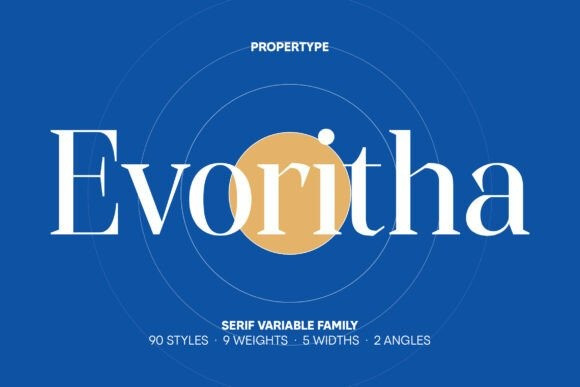
Evoritha Font
Designer: Propertype
Evoritha Font a highly refined serif font that exudes an aura of elegance. Evoritha’s uniqueness lies in the harmonious blend of geometric shapes and graceful curved elements, resulting in a font with a unique and distinctive character. Embrace the sophistication of Evoritha for all your typography needs.